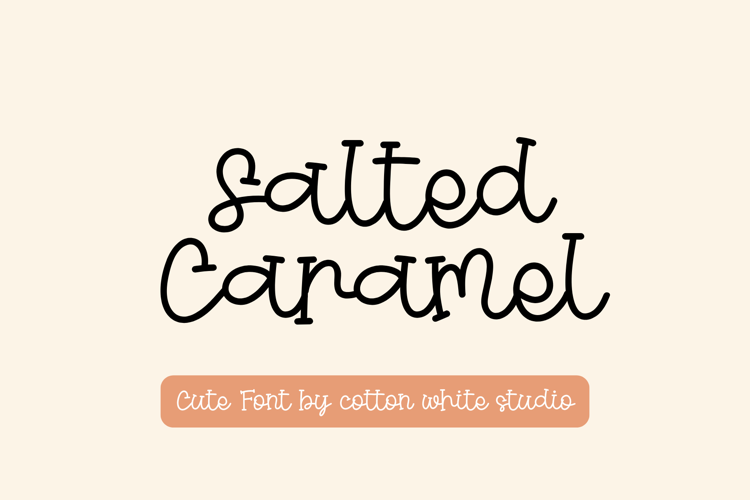
Salted Caramel
A fun and whimsical font that adds a playful touch, making it ideal for social media, creative projects, invitations, posters, crafts, and much more!